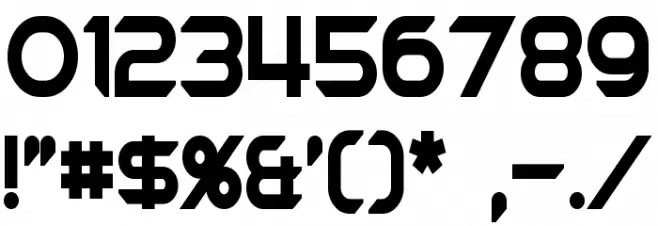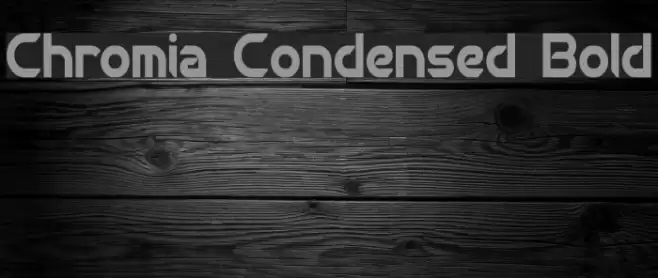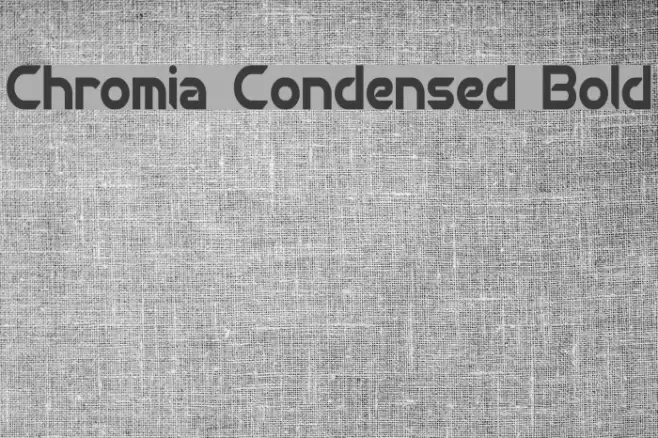
Chromia Condensed Bold Font
Chromia Condensed Bold Description
This font features a bold, geometric design with a condensed structure, making it ideal for impactful headlines and modern design projects. The characters are crafted with sharp angles and clean lines, giving it a futuristic and dynamic appearance. The uppercase and lowercase letters maintain a consistent style, while the numerals and special characters complement the overall aesthetic. Its bold weight and condensed width make it stand out, ensuring readability and attention-grabbing appeal.
| Proposed Projects | Perfect for branding, advertising, posters, and any project requiring a strong visual impact. |